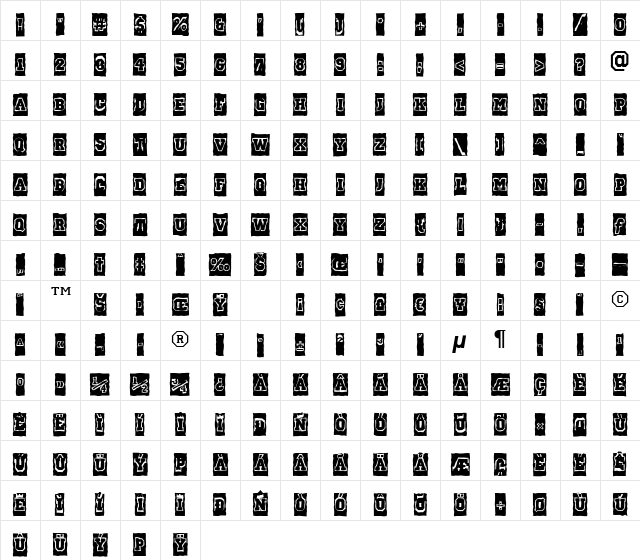
a_CampusCmGrBrk Bold
Designer: W.Chufarofsky & M.Slutsker
Design Context for a_CampusCmGrBrk
a_CampusCmGrBrk is a composed and adaptable typeface that performs quietly and consistently across a wide range of design contexts. Its bold stroke weight gives it real presence on the page.